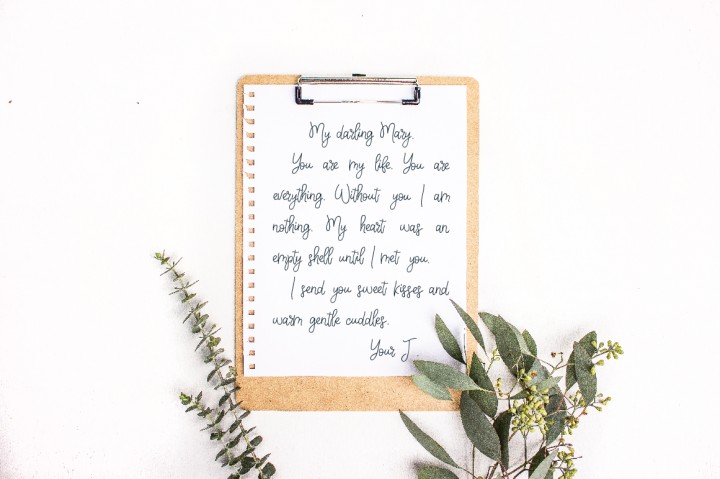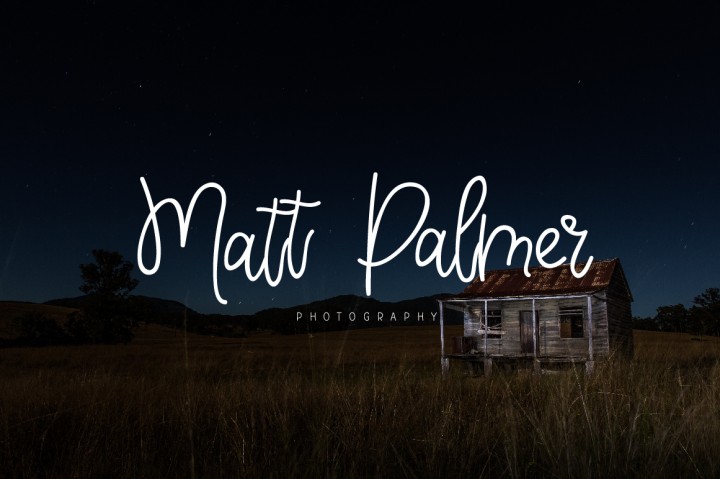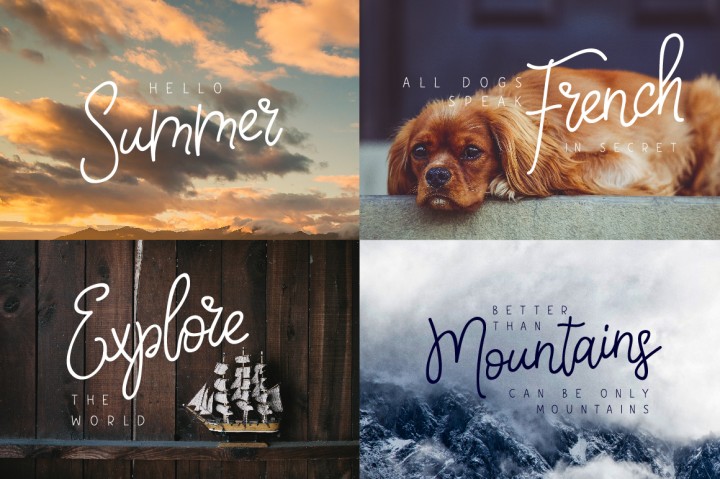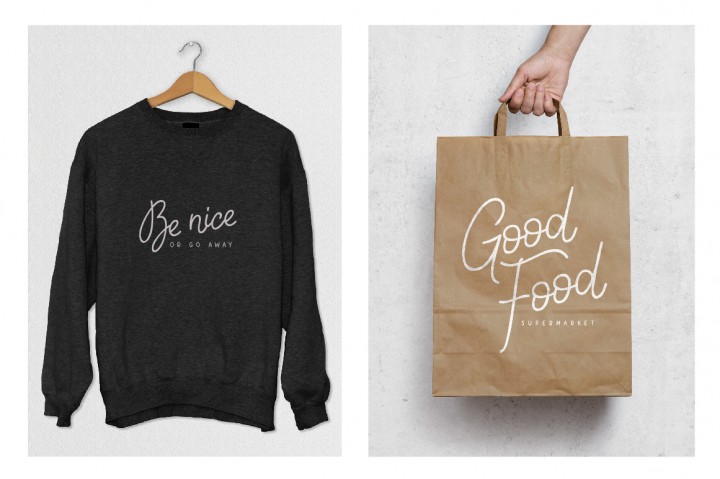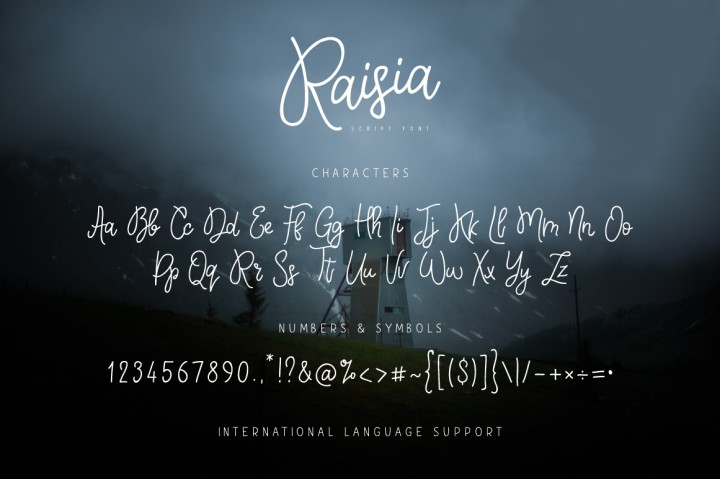
Raisia Font
About Raisia Font
Raisia is a thin handwritten mono line font created by Chekart.
It’s fluid letters are perfect for adding a personal touch to designs.